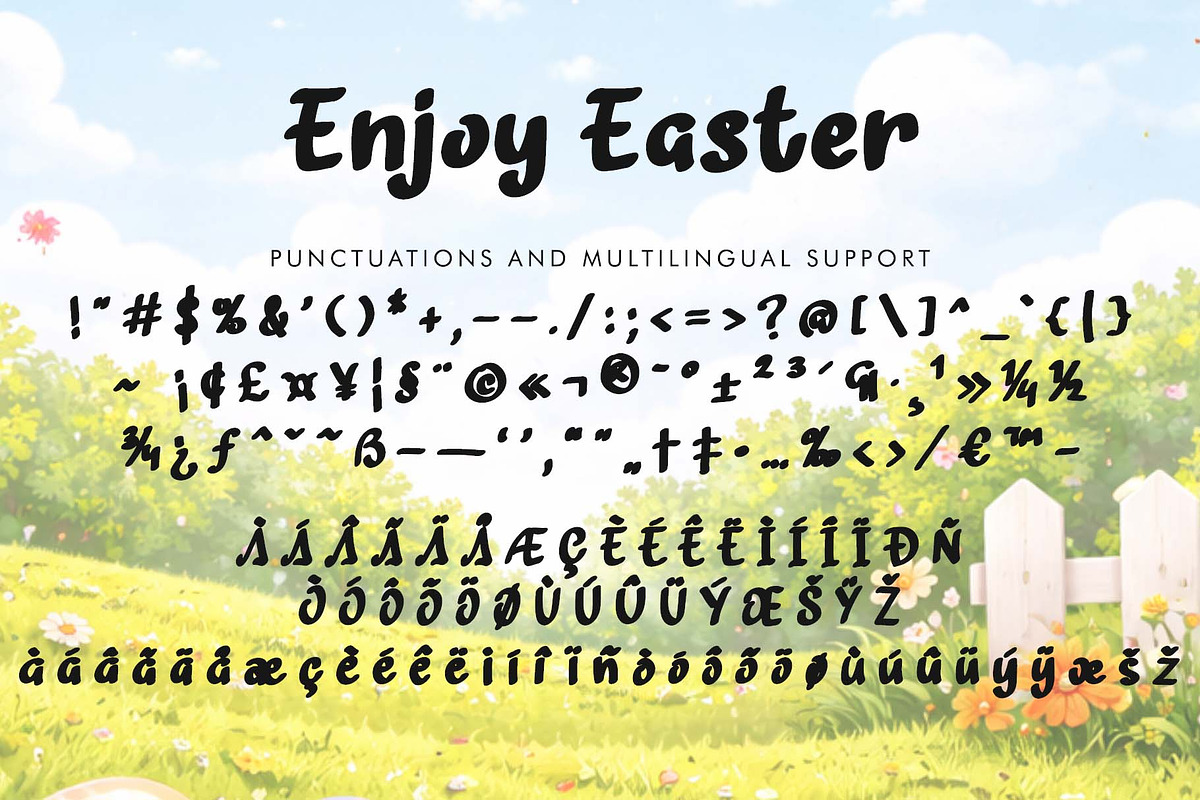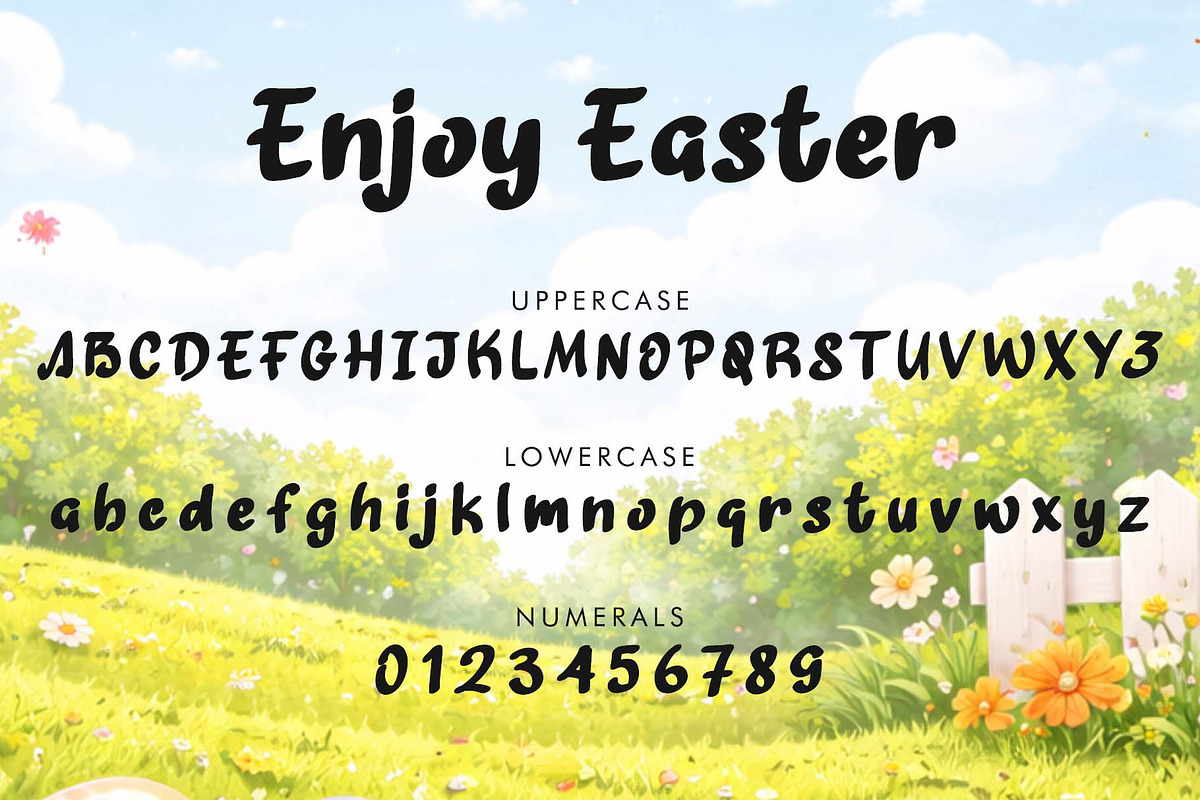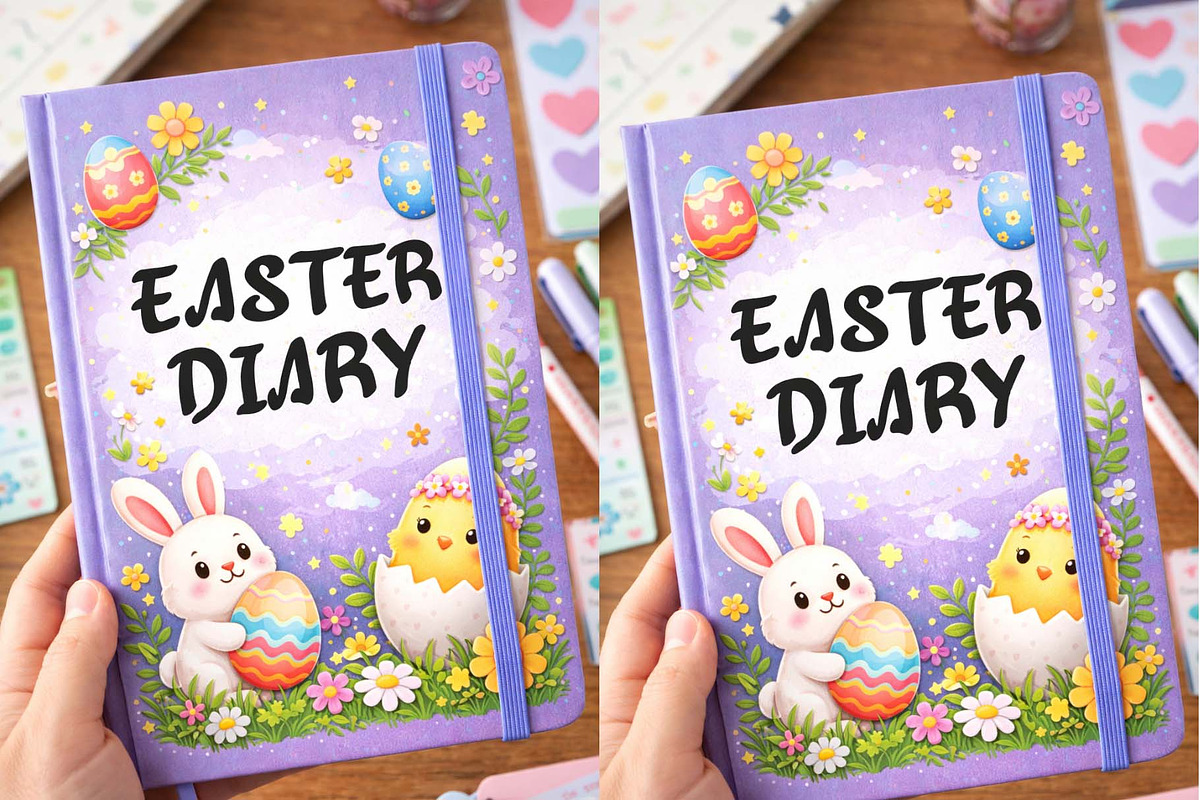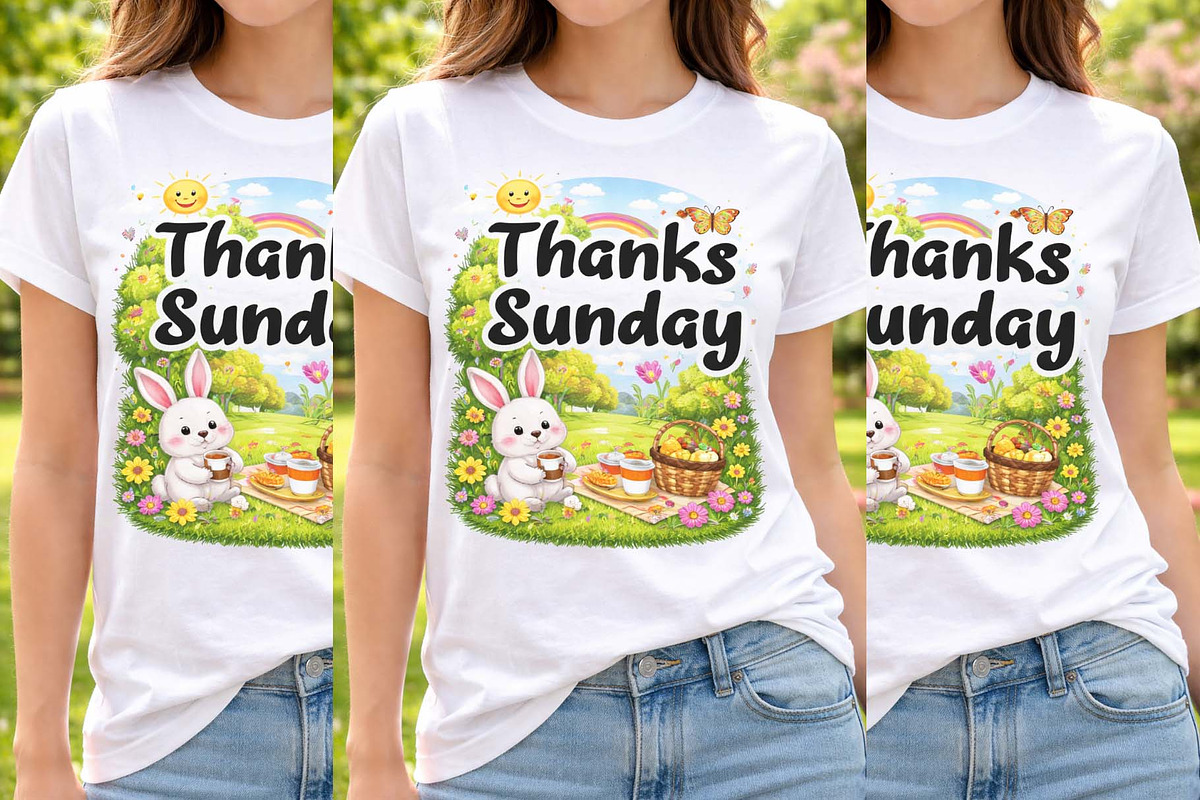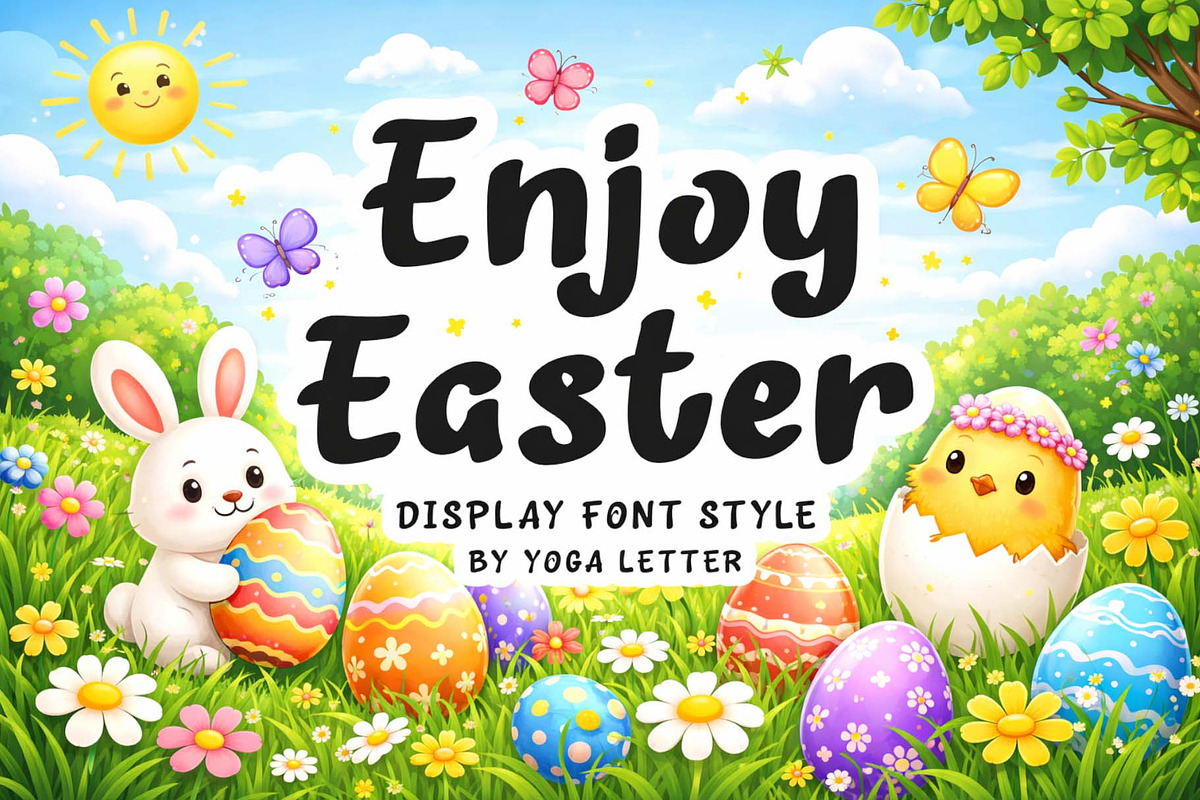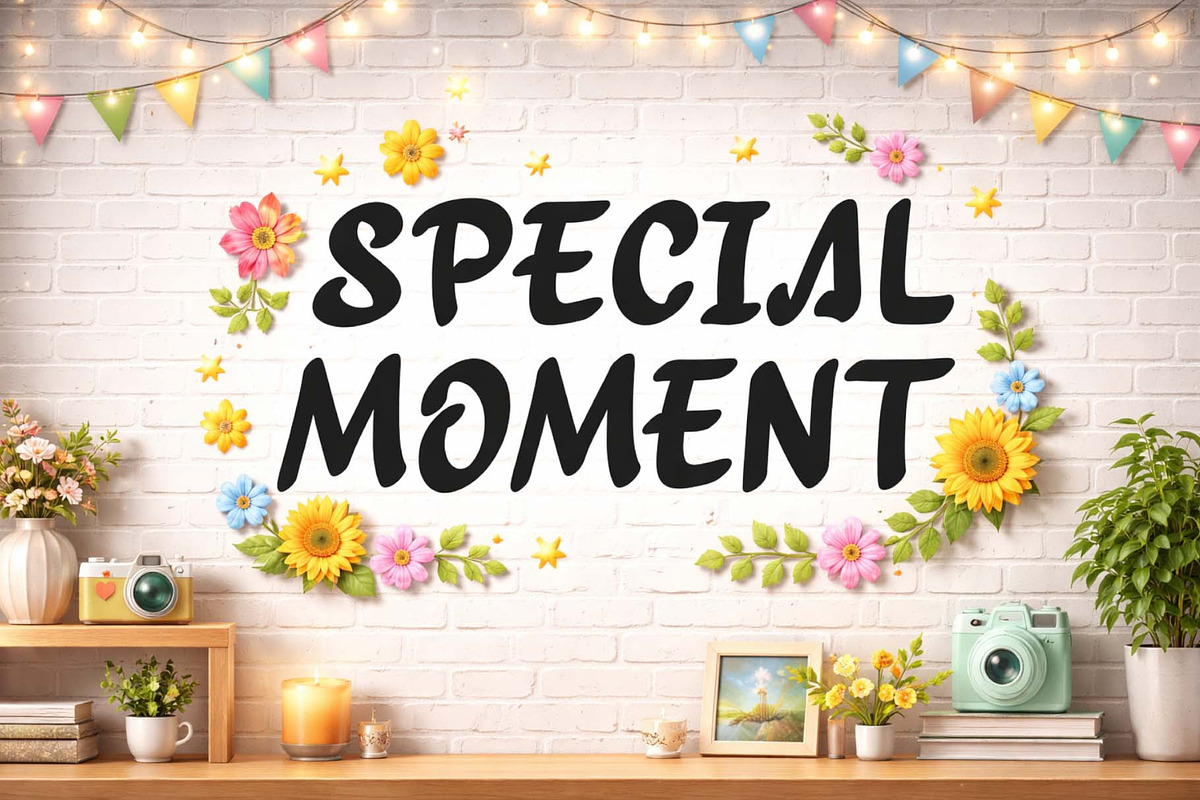
Enjoy Easter
"Enjoy Easter" is a cute and unique display font. It features uppercase and lowercase letters, numerals, punctuations, and multilingual support. It's perfect for Easter, spring, banners, posters, branding, logos, comics, magazines, business branding, t-shirts, book titles, cartoons, tattoos, stickers, Easter greeting cards, Easter egg hunt posters, and more.